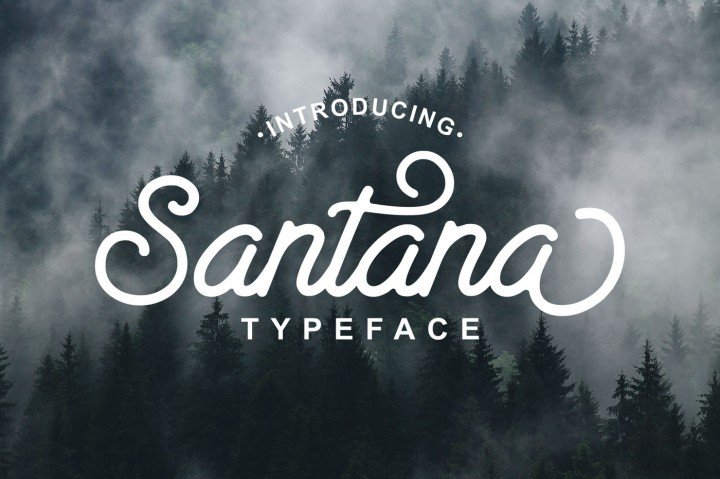
Santana Script Font
Santana Script is stylish modern script. Comes with a lot of beautiful opentype features, very good for branding projects, product packaging, homeware design,or simply as a stylish text overlay to any background image.
Alternate
Swash
Ligatures
Stylistic set ss01-ss05
Multilingual Support